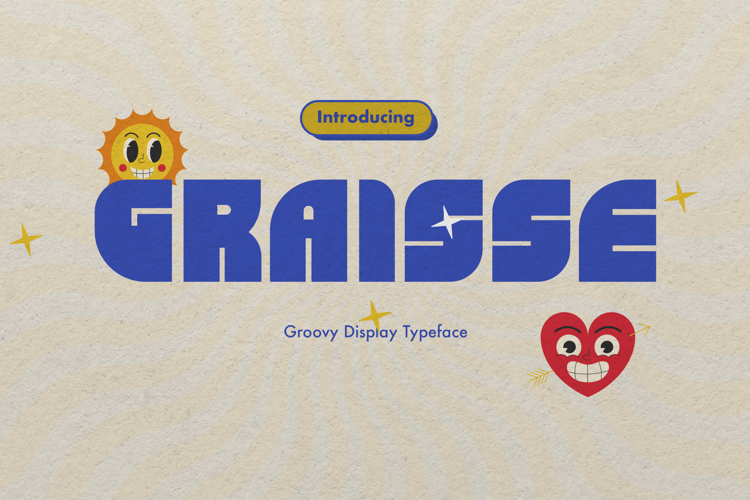
Graisse Font
About Graisse Font
Introducing Graisse Demo, a captivating display font that exudes modern elegance and sophistication. With its bold letterforms and unique character, Graisse Demo adds a touch of contemporary flair to your designs. This demo version includes a limited set of uppercase letters, numerals, and basic punctuation marks, allowing you to experience the essence of Graisse's charm. Elevate your design projects with the sleek and stylish aesthetic of Graisse Demo. Upgrade to the full version for the complete character set and unleash the full potential of this remarkable font.